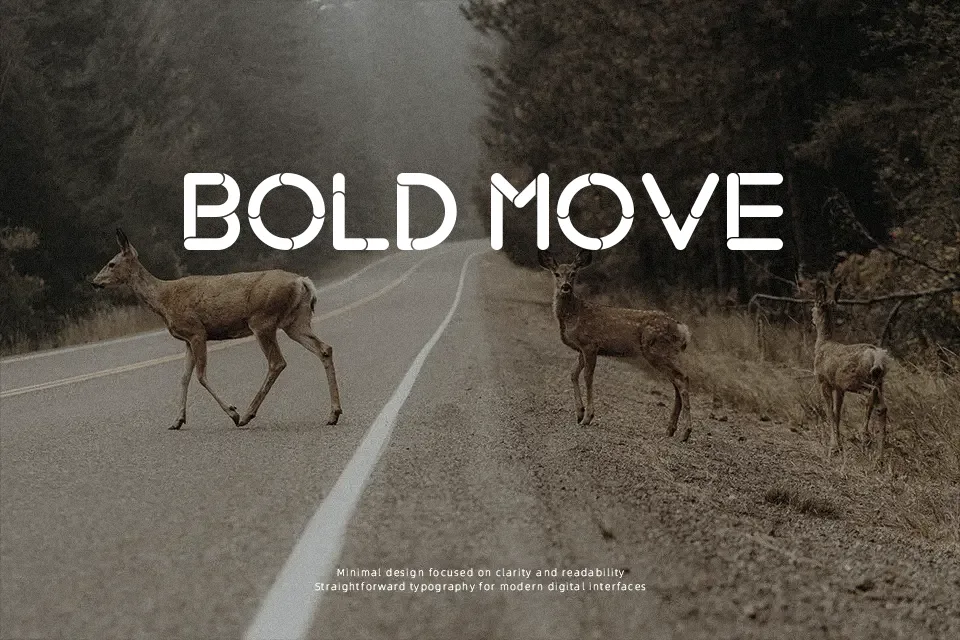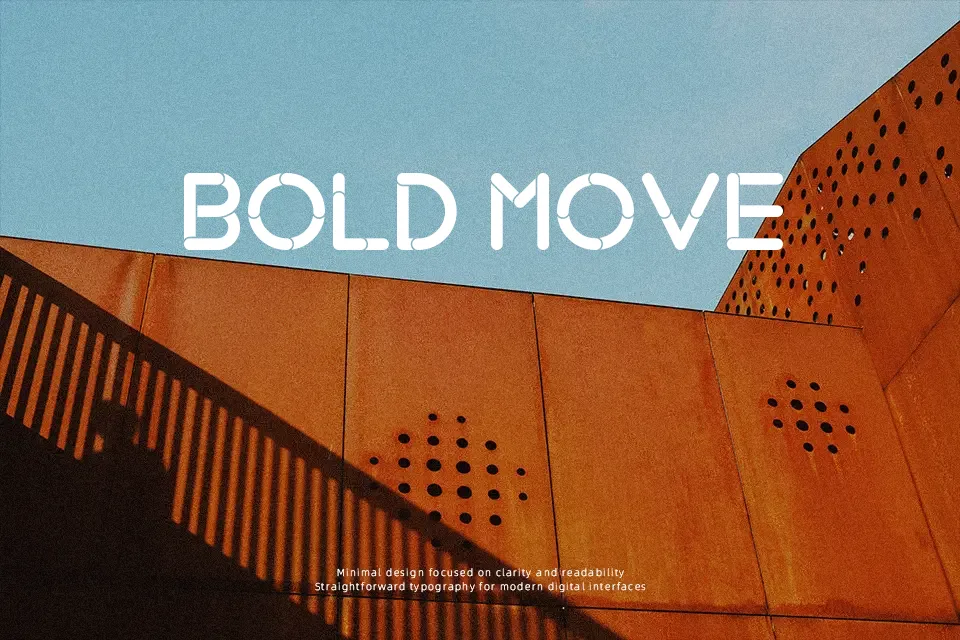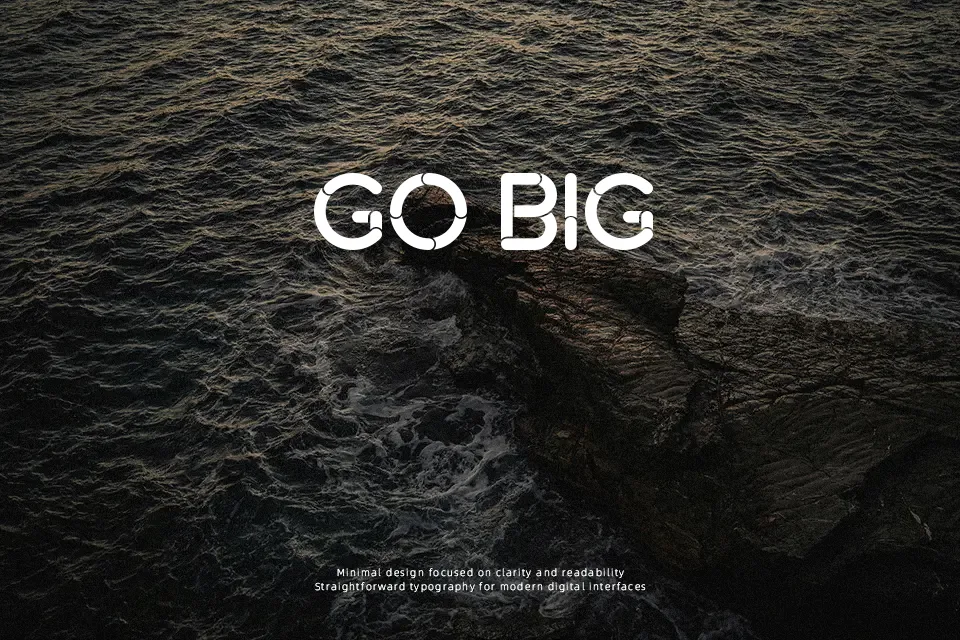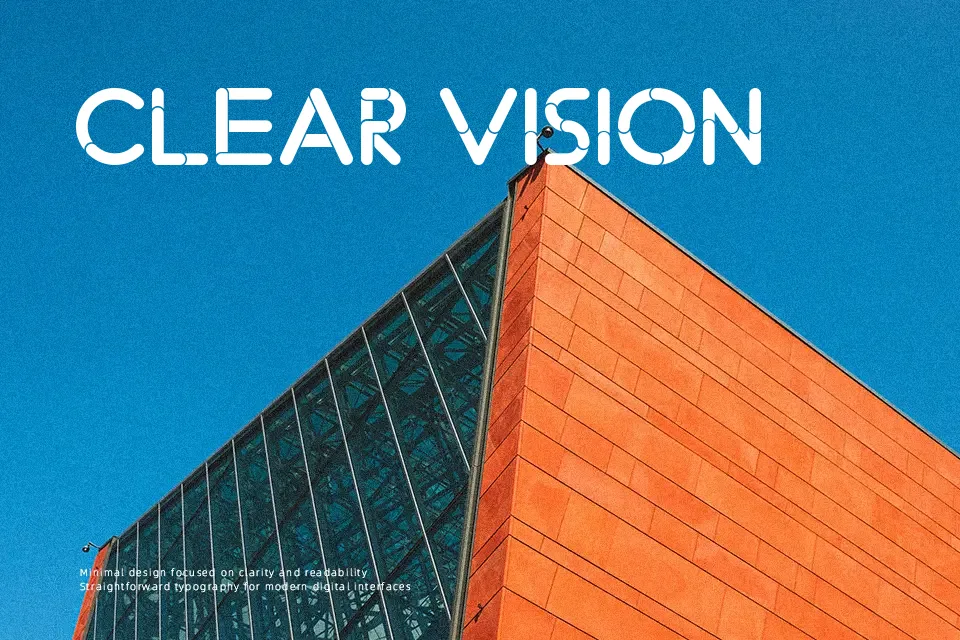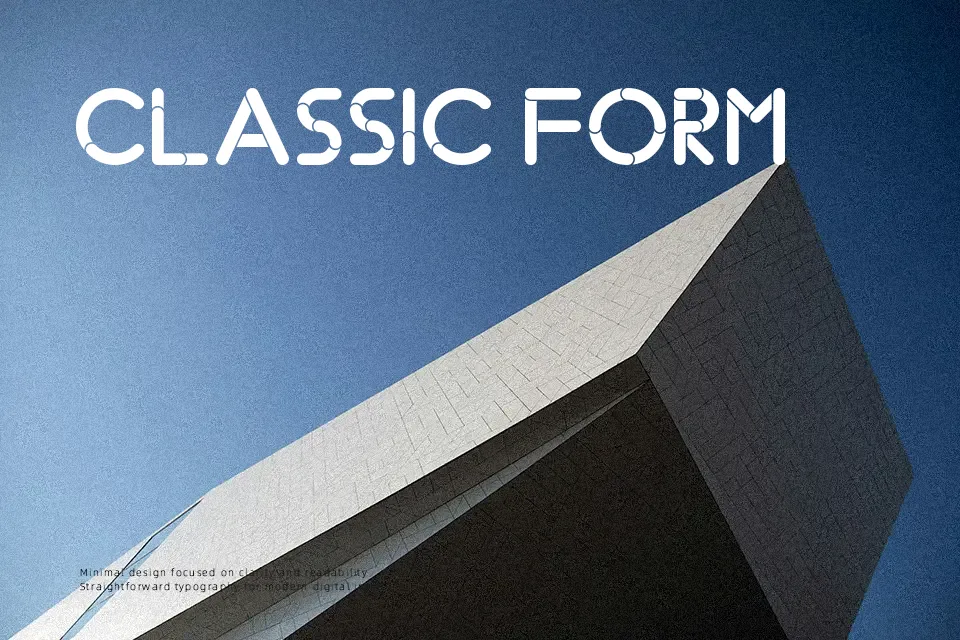
Bobz Type Font
Designed by Bobz Type
Bobz Type is a geometric display face built from thick, rounded strokes with cut‑out stencil gaps, so every letter feels like a solid block with deliberate breaks. The uppercase‑driven character set and tight shapes give it a compact, poster‑style presence that reads clearly at large sizes but can feel heavy in long lines. Visually it leans casual and slightly experimental, somewhere between playful stencil and soft geometric graffiti, which suits youth‑oriented graphics, gaming covers, street‑inspired layouts, and bold logo wordmarks. It works well when you keep copy short and graphic, but it is not a good match for body text or projects that demand a restrained, formal tone.
bold poster headlines and event titles
gaming, streetwear, or music branding with a graphic edge
social media graphics where short words need strong impact
long paragraphs or small‑size reading text
formal corporate or editorial layouts
projects requiring subtle, neutral typography
Perfect for branding, gaming, and logo, with a artistic and display style.